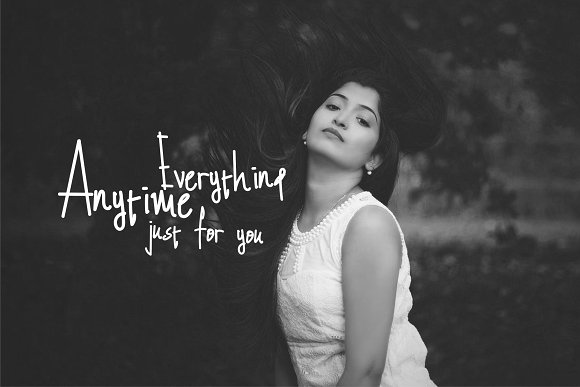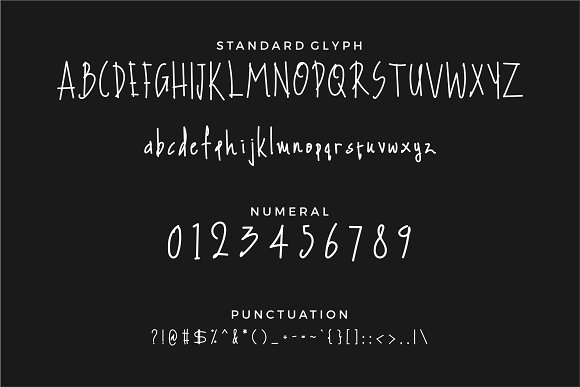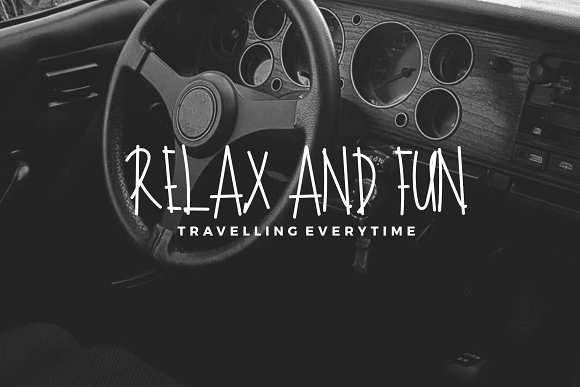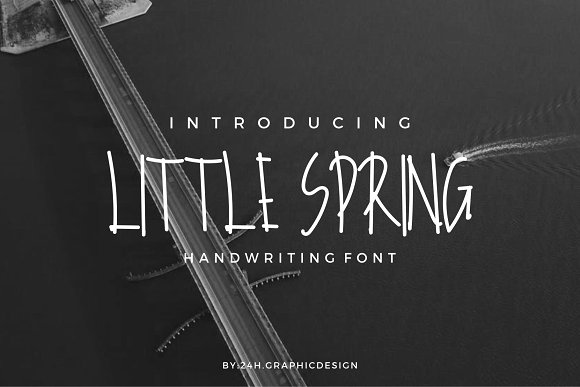
Little Spring Handwriting Font
Fonts with handwriting style, perfect for something that is relaxed but also can be used for serious things like logo. This font can be used for greeting cards, banners, photo or anything else.